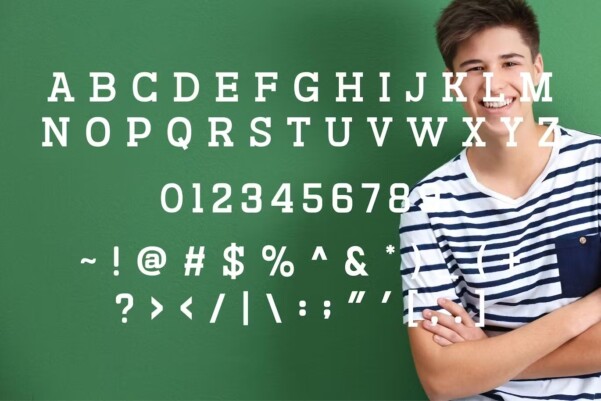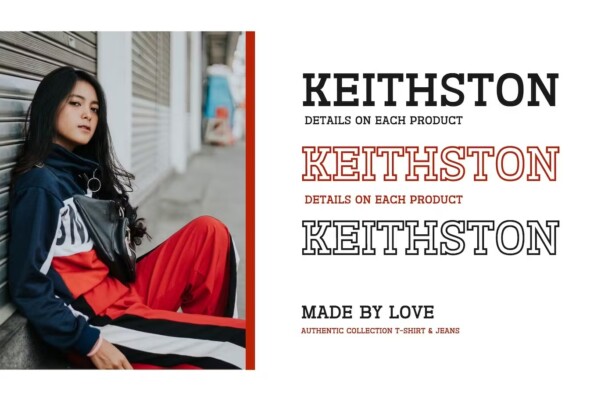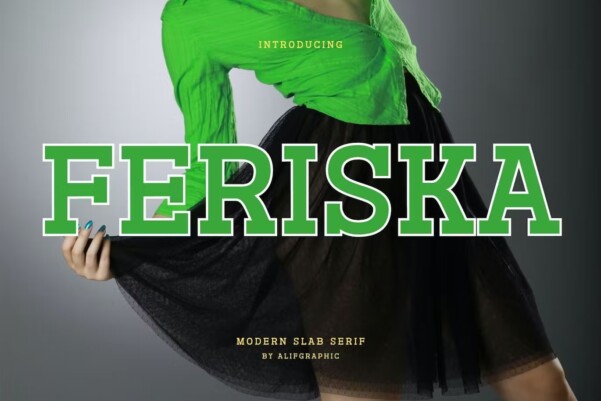
Feriska Font
Feriska Font, A beautiful series of letters is encapsulated in this ‘FERISKA’ font. Neat lettering is perfect for writing needs that are modern and pleasing to the eye, there is a modern impression but still looks elegant when used for writing. Tidiness in the manufacture of each letter, is our top priority. You can have fun and be creative using this font product we made, because the results will definitely be very satisfying.